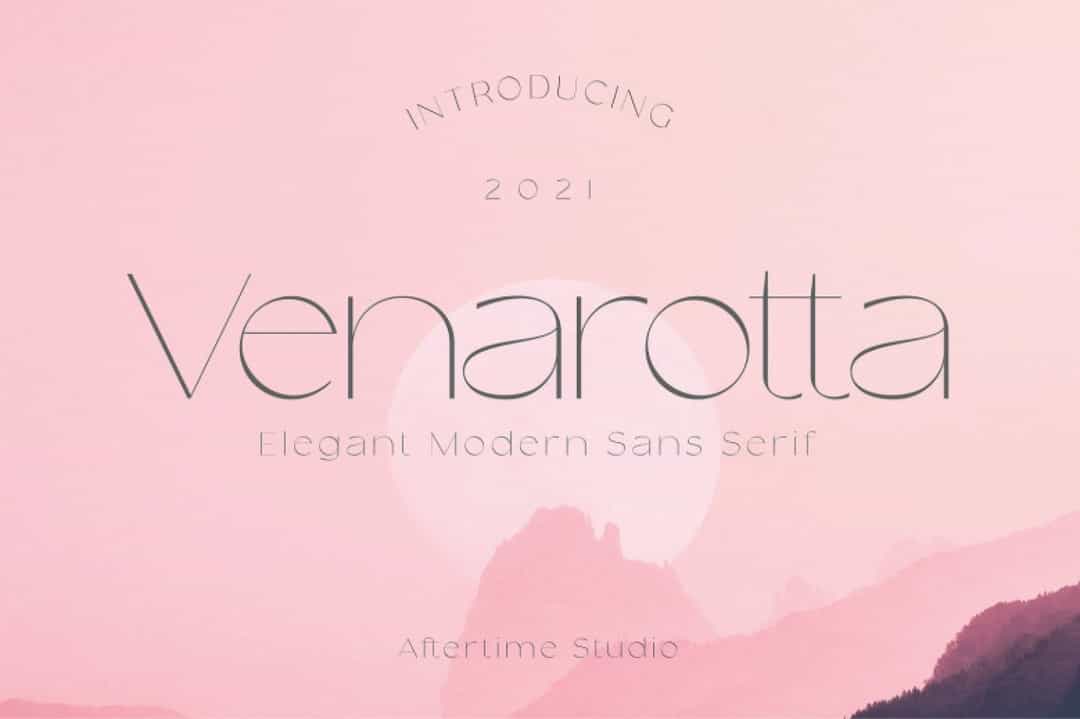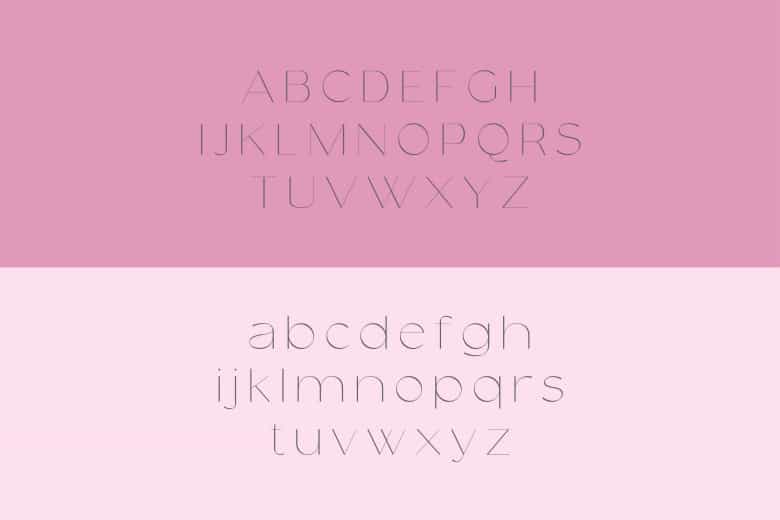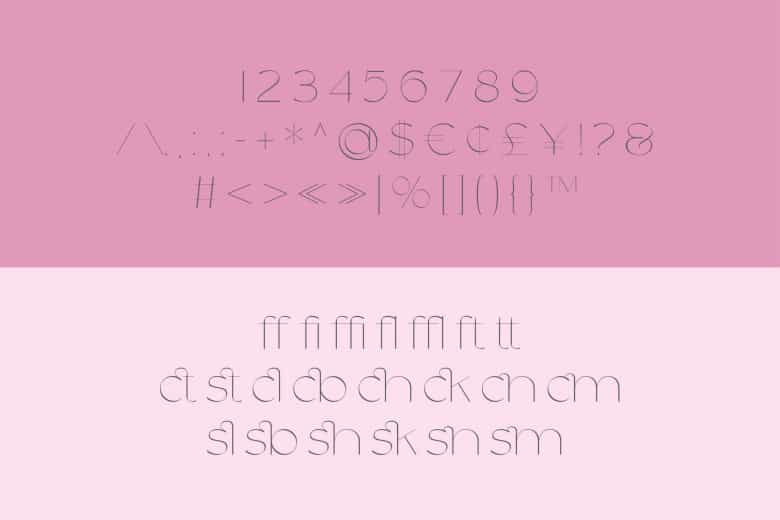
Venarotta is an elegant modern sans serif font that makes an eye-catching impression in branding, logo design, clothing branding packaging for products magazines headers or simply as an attractive text overlay for images.